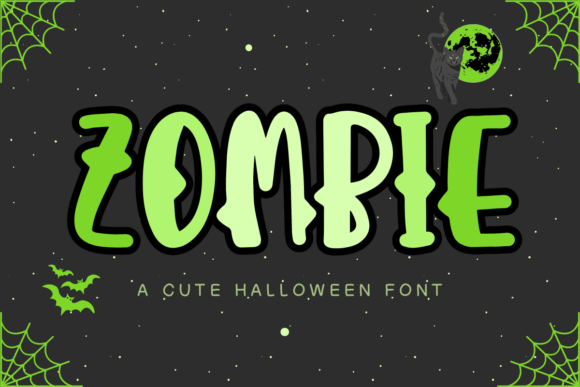
Introducing Zombie Font, a spine-chilling display font that will cast a spell on your designs and leave an eerie, unforgettable impression. Crafted with meticulous precision by the talented Khim08Studio, Zombie Font is a visual masterpiece that captures the essence of Halloween with its spooky, scary, and mysterious vibe.
Unleash the power of Zombie Font and let your creativity run wild. Its haunted and captivating letterforms will add a touch of eerie elegance to your book covers, horror posters, and Halloween-themed invitations. Elevate your social media posts, greeting cards, and website designs with the haunting beauty of Zombie Font, sure to leave a lasting impact on your audience.
Step into a world of enchanting typography with Zombie Font, a display font that will make your designs dance with macabre charm. Turn your words into haunting works of art, guaranteed to send shivers down the spine and leave your readers spellbound. Experience the magic of Zombie Font today and let your imagination run wild!